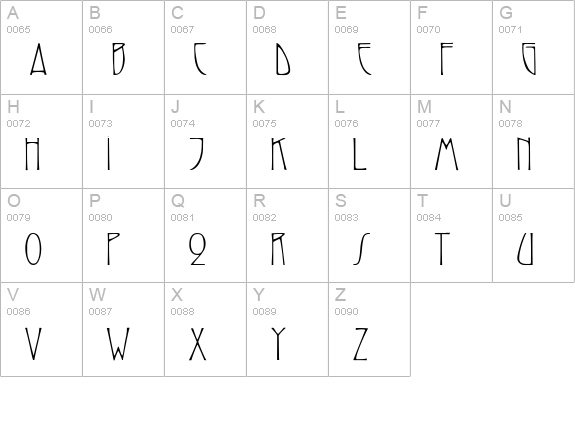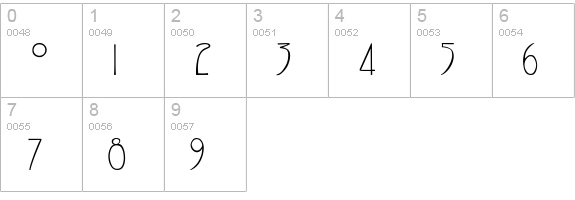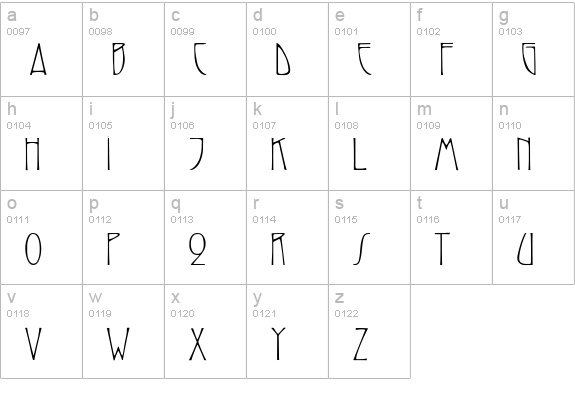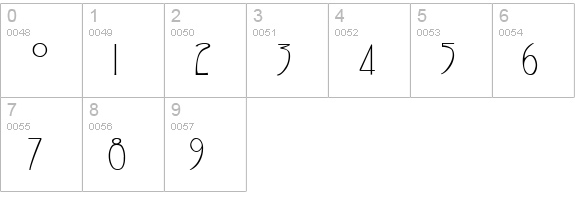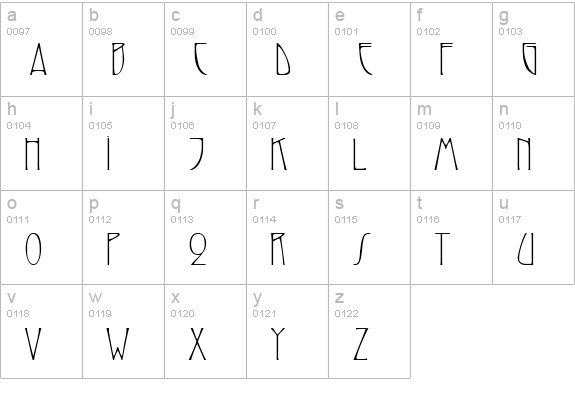
SarahCaps Font Details
SarahCaps font is a captivating and elegant typeface that exudes sophistication and grace. Its unique and intricate letterforms are inspired by vintage calligraphy, making it a perfect choice for adding a touch of elegance to any design project. The flowing curves and delicate strokes of SarahCaps font create a sense of movement and fluidity, making each letter a work of art in itself. Whether used for wedding invitations, branding materials, or editorial designs, this font is guaranteed to make a lasting impression. But what sets SarahCaps font apart from other typefaces is not just its beauty, but also its accessibility. It is freely available to download at FontsMarket.com, allowing designers and creatives of all backgrounds to access and utilize its stunning features without any limitations. With SarahCaps font, you can easily elevate your designs to new heights. Its timeless appeal and versatility make it suitable for a wide range of projects, from traditional to contemporary. Whether you're designing for print or digital media, this font will add an air of sophistication and refinement to your work. Don't miss out on the opportunity to enhance your designs with the mesmerizing beauty of SarahCaps font. Download it for free at FontsMarket.com and let your creativity flourish with this exceptional typeface.